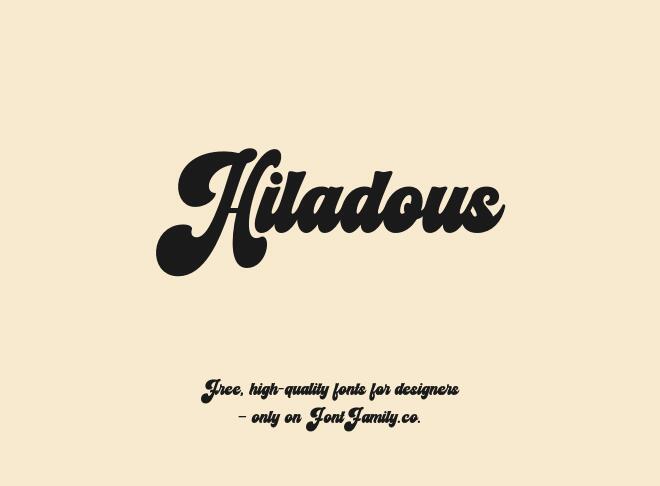
Hiladous Font
Hiladous Font is a modern, elegant, and decorative typeface designed by Design Foundry. It's a perfect blend of contemporary aesthetics and refined elegance, making it an ideal choice for a range of design projects. Whether you're crafting wedding invitations, designing fashion branding, or creating striking headlines for a website, Hiladous Font brings a touch of sophistication and style. It's a versatile font that pairs well with both serif and sans serif typefaces, offering endless possibilities for designers. Its unique character design sets it apart from other fonts, making it a great choice for projects that require a distinctive and memorable typeface. The font is available under the Open Font License, making it free to use for both personal and commercial projects. Elevate your designs with the stylish and modern Hiladous Font.